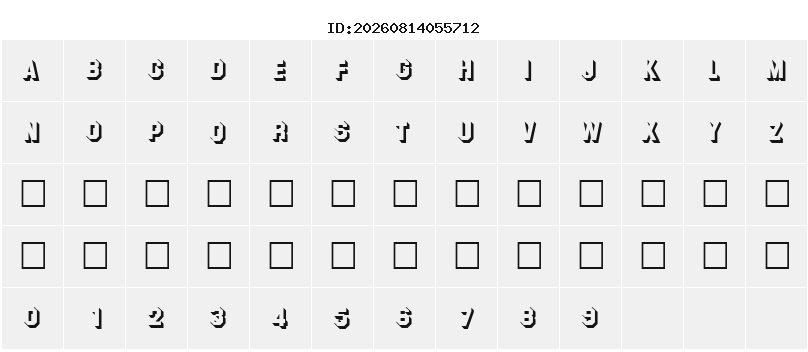
• Font Name: Superstar Shadow URW
• Full Font Name: Superstar Shadow URW
Superstar Shadow URW.ttf is a modern, elegant sans-serif font designed for ultimate readability and visual harmony. Perfect for branding, headlines, web design, and print materials.